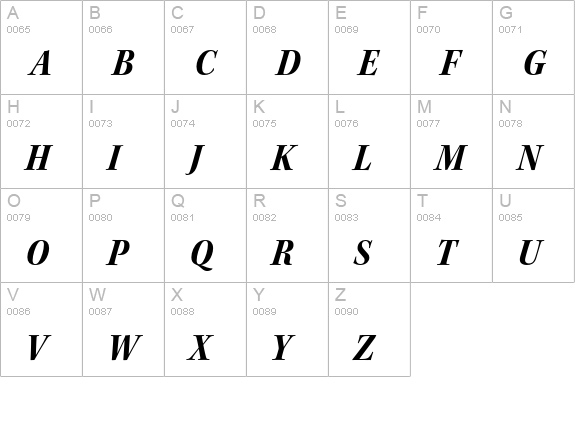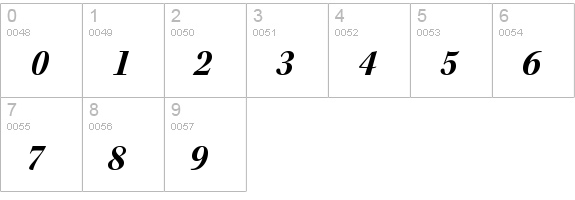
Kepler Std Bold Semicondensed Italic Subhead Font Details
Kepler Std Bold Semicondensed Italic Subhead is a strong, high-contrast, italic variant in the Kepler typeface family \xE2\x80\x94 well suited to headlines, attention-grabbing titles, and strong calls-to-action.
Kepler Std Bold Semicondensed Italic Subhead font is a remarkable typeface that exudes elegance and sophistication. With its bold weight and semicondensed proportions, it effortlessly commands attention and adds a touch of modernity to any design. The italicized slant of this font adds a hint of playfulness, perfect for subheadings and titles that need a little extra flair. Its sleek and stylish appearance makes it a versatile choice for a wide range of design projects, from editorial layouts to branding materials and everything in between. Not only does Kepler Std Bold Semicondensed Italic Subhead font possess exceptional aesthetics, but it also offers a high level of legibility, ensuring that your message is communicated clearly and effectively to your audience. The best part? This incredible font is available for free download at FontsMarket.com. Whether you are a professional designer or an enthusiastic hobbyist, this font is accessible to all, allowing you to elevate your creative projects without breaking the bank. So why wait? Take advantage of the opportunity to enhance your designs with the captivating Kepler Std Bold Semicondensed Italic Subhead font. Download it today for free at FontsMarket.com and unlock a world of possibilities for your next design endeavor.